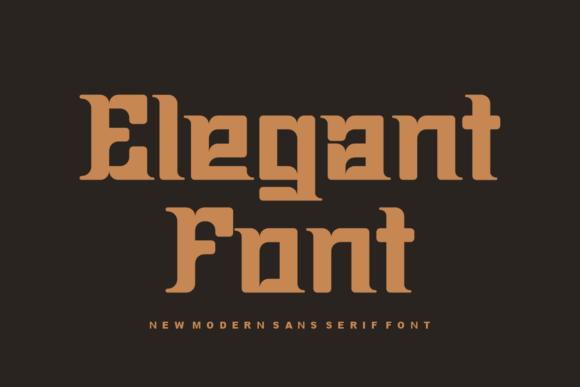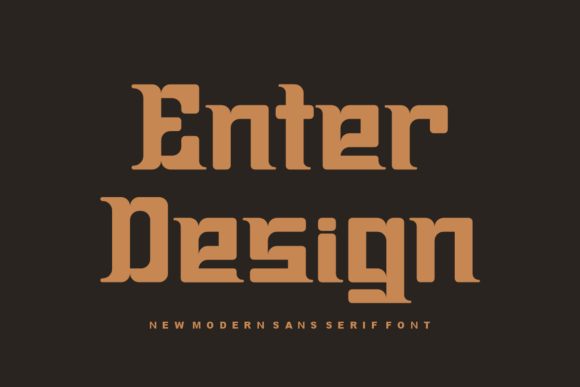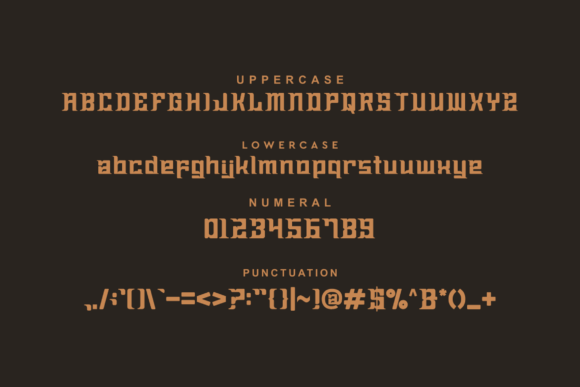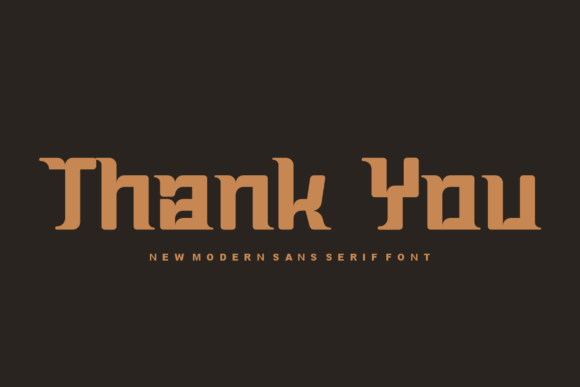
Power Rolland
POWER ROLLAND FONT SPECIMEN
Power Rolland is a bold and authentic slab serif font. The font is suitable for any branding project like logo, t-shirt printing, export, and many more. It looks outstanding in a wide range of contexts.